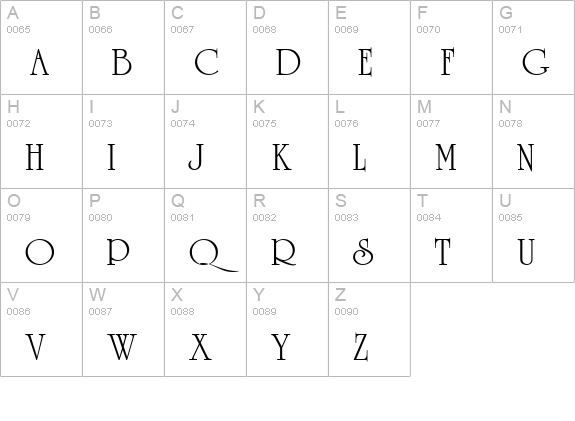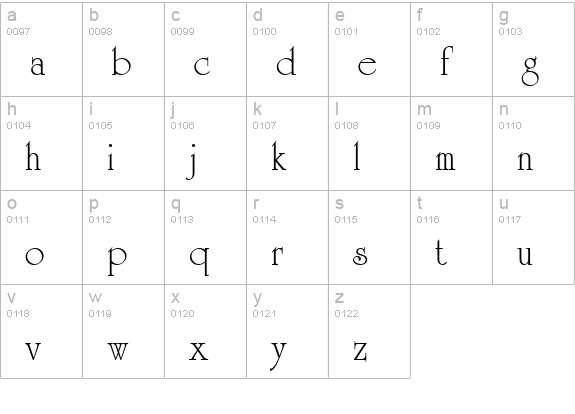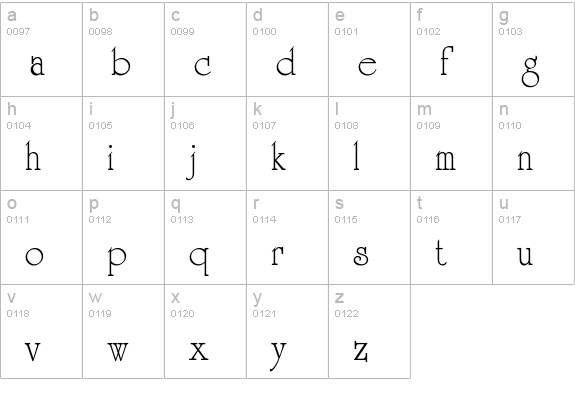
Academia SSi font is a sleek and sophisticated typeface that exudes elegance and professionalism. Its timeless design makes it perfect for academic and formal settings, providing a touch of refinement to any project. With its clean lines and classic feel, Academia SSi font is versatile and can be used for a variety of purposes, from documents and presentations to invitations and branding. What sets Academia SSi font apart is that it is free to download at FontsMarket.com. This means that you can easily access this high-quality font without any cost, making it a valuable resource for students, educators, and professionals alike. Whether you are working on a research paper, designing a poster, or creating a logo, Academia SSi font offers a sophisticated and polished look that will elevate your work to the next level. Download Academia SSi font today and add a touch of elegance to your projects.